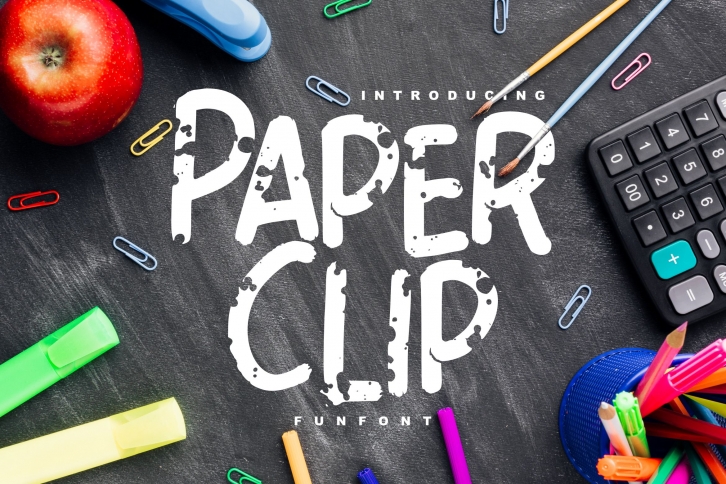
Paper Clip is a beautiful font that was designed by Vunira. It's a great choice for designers and creatives who need such a font. It was released on October 11, 2019 and the file size is 14.52 MB. Paper Clip may give a more youthful, expressive and casual look to your project. It is a very beautiful, refined, elegant, and high-quality font.